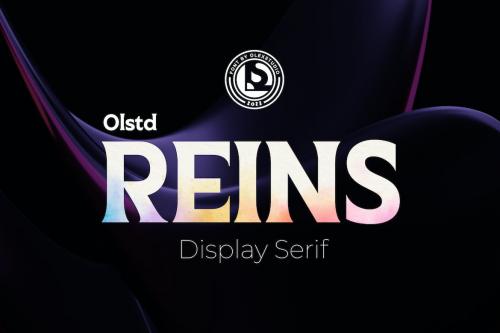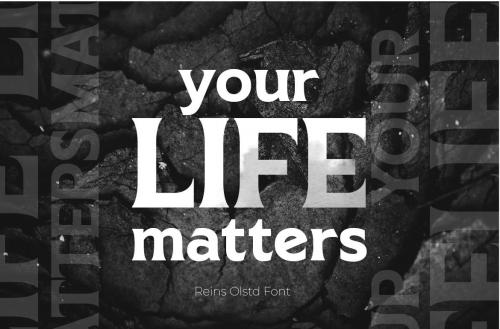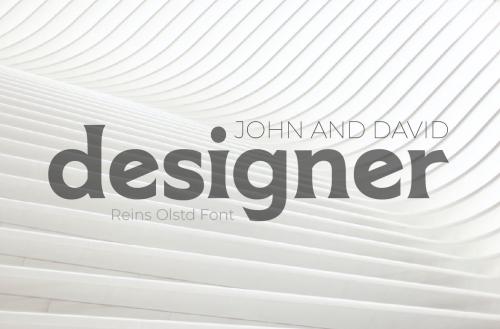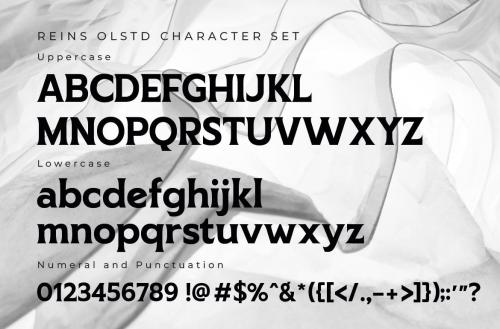
REINS Olstd - Display Serif HFCQUHS
**REINS Olstd - Display Serif Font** will look gorgeous on all your designs, invitation, poster design, book design, branding materials, logo''s, and all project design other.
**REINS Olstd - Display Serif Font** contains standard characters, Lowercase, Uppercase, numbers, punctuation, ligatures and international glyphs. You will receive OTF, TTF files & WEBFONT.